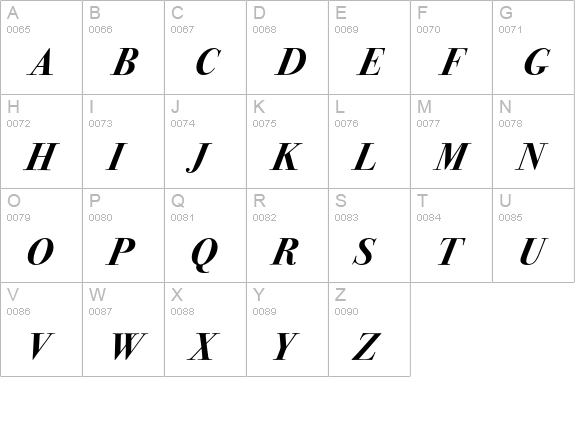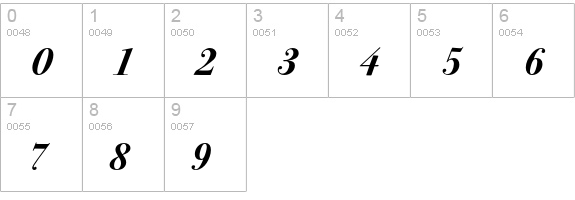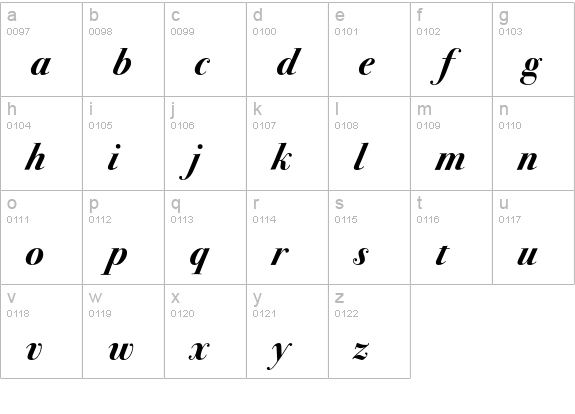
BodoniSeventytwoEF-BoldIta Font Details
BodoniSeventytwoEF-BoldIta font is a stunning display typeface that exudes elegance and sophistication. Its bold and italic design commands attention, making it perfect for headlines, titles, and other prominent text elements. The unique combination of sharp serifs and sleek curves gives this font a timeless appeal that is both classic and modern. What sets BodoniSeventytwoEF-BoldIta font apart is not only its striking appearance but also its versatility. Whether used for print or digital projects, this font shines in a variety of contexts, adding a touch of sophistication and style to any design. The best part? BodoniSeventytwoEF-BoldIta font is available for free download at FontsMarket.com. Now you can elevate your projects with this exquisite typeface without breaking the bank. Don't miss out on the opportunity to enhance your designs with the beauty and elegance of BodoniSeventytwoEF-BoldIta font. Download it today and let your creativity soar.